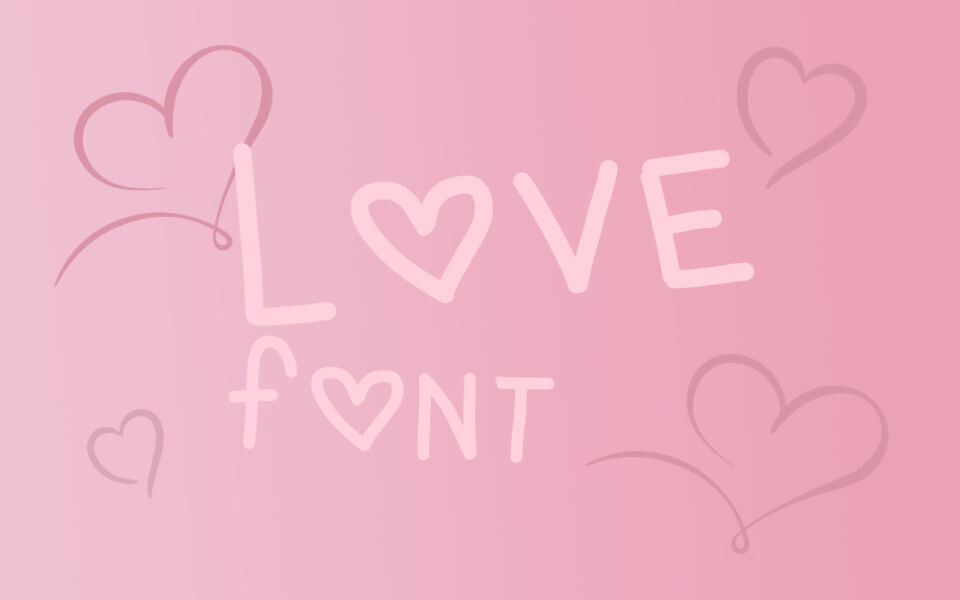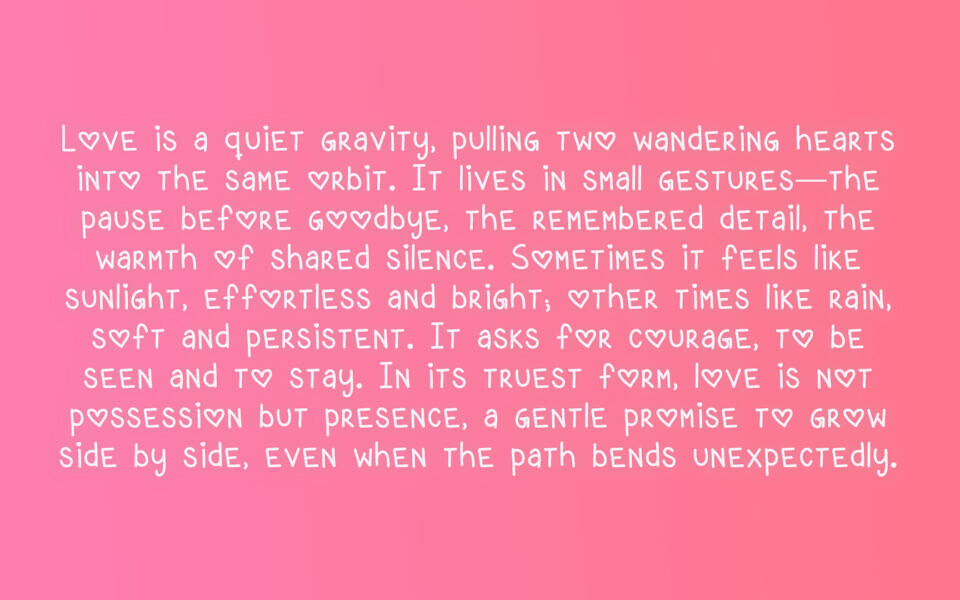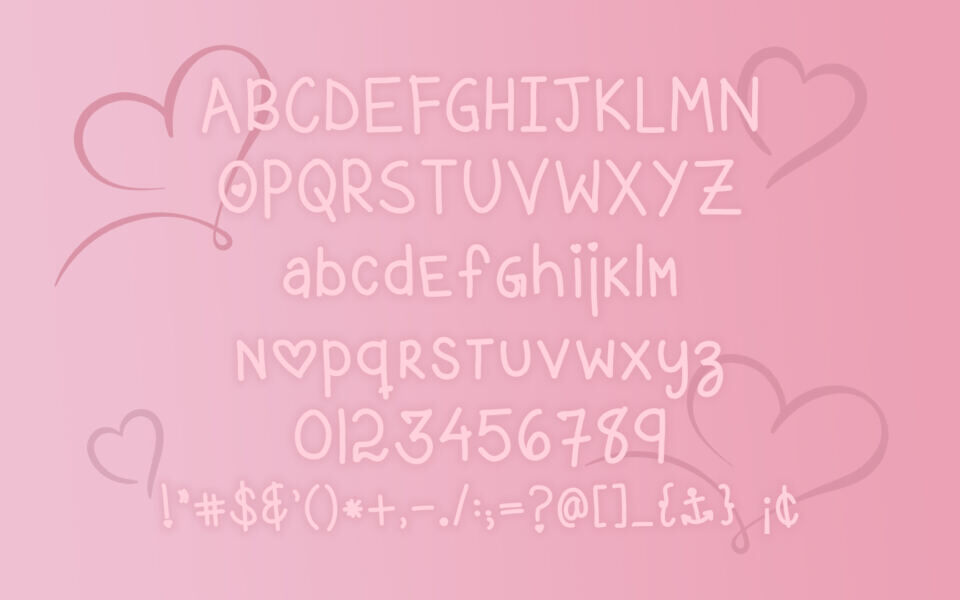
“Love” is a charming, romantic display typeface characterized by its soft, rounded letterforms and playful spirit. Its standout feature is the integration of delicate heart motifs—often replacing the dots over the “i” and “o” with hearts, or serving as decorative flourishes within the characters.
With its clean, monoline weight and whimsical aesthetic, it is perfect for Valentine’s Day cards, wedding invitations, and creative DIY projects that require a touch of sweetness and affection.